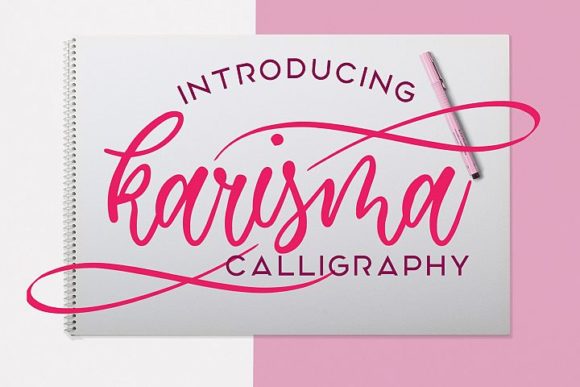
Karisma Font
Karisma, uniqueness, nerve and talent: This extraordinary script combines all of these characteristics, delivering a strong and romantic font experience.